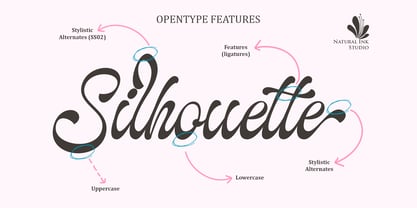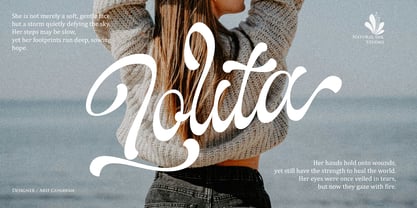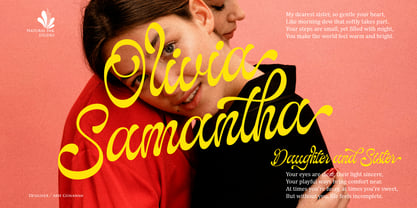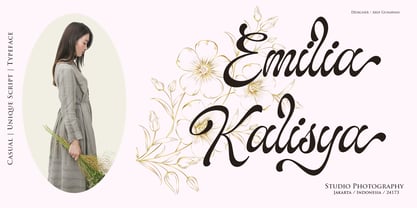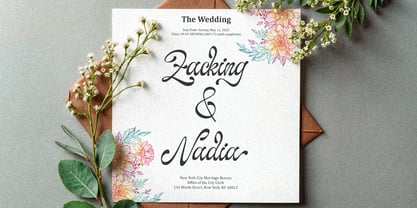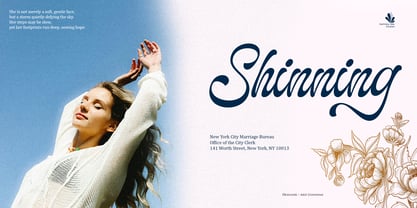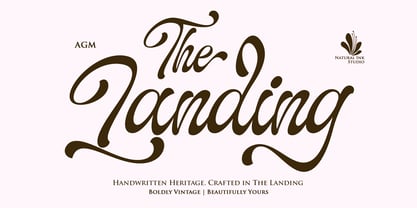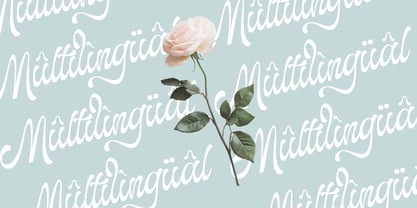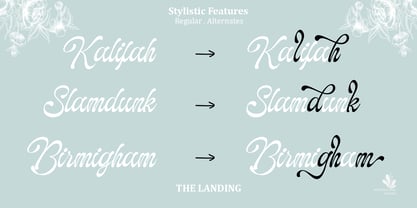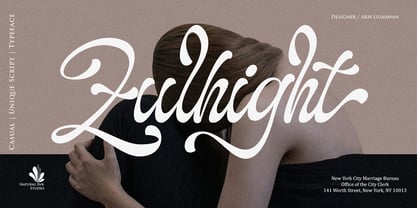
The Landing Shadow
by Natural Ink
The The Landing Shadow Font Family was designed by Arif Gunawan and published by Natural Ink. The Landing Shadow contains 2 styles and family package options. More about this family
The Landing a professional script font with irregular thickness and slightly rounded edges, making the letters look different from regular script fonts. With a unique typeface, this font leans slightly towards retro fonts and includes a shadow file. This font is perfect for headlines, digital ads, magazines, websites, posters, brands, and logos. No matter the topic, this font will be a great asset to your font collection, as it has the ability to enhance the quality of any design. With this beautiful font, your project is sure to stand out. The Landing also comes with several unique alternates and ligatures, as well as multilingual support features that can make your project more attractive.
The Landing Shadow